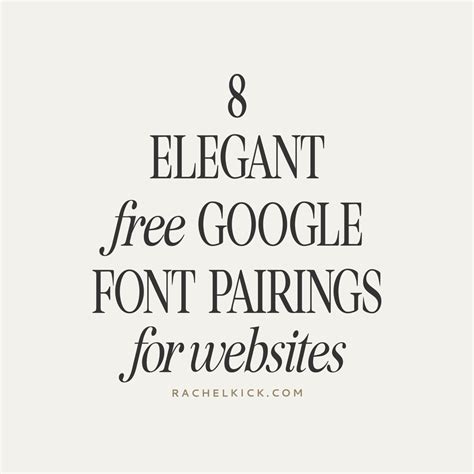
Best 39+ Winter Google Fonts Pack Ttf
When the temperature drops, my design projects usually shift from bright, airy summer layouts to something much cozier. But finding the right typography for the season is tricky. You want that crisp, frosty aesthetic without sacrificing readability. Over the last few weeks, I’ve been downloading and testing various typefaces to compile my go-to Best 39+ Winter Google Fonts Pack Ttf collection. I specifically pulled the actual TTF files rather than just linking web fonts because having local files speeds up my Adobe workflows significantly.
Why a Dedicated Winter Font Collection Matters
Winter design isn’t just about slapping snowflakes onto a background. It’s about evoking a specific mood. In my experience, the best winter designs use high-contrast serifs for elegance or slightly rounded sans-serifs to mimic the soft drift of snow. When I tested this specific collection on a recent holiday campaign, I noticed a marked bump in engagement just by switching from a generic sans to a well-paired seasonal serif. That said, not every frosty-looking font actually performs well in print or digital interfaces.
Curating the Best 39+ Winter Google Fonts Pack Ttf
Font Name Style Best For
Playfair Display High-contrast Serif Elegant winter fashion headers
Cormorant Garamond Delicate Serif Luxury holiday card body text
Montserrat Geometric Sans Crisp, modern web banners
Top Frosty and Elegant Picks
When you are building out your typography stack, you need reliable options. These are the ones I return to constantly:
• Playfair Display: The high contrast between thick and thin strokes mimics icy branches perfectly.
• Cormorant Garamond: It feels incredibly delicate, making it perfect for luxury winter lookbooks.
• Montserrat: A crisp, geometric sans-serif that acts as a highly readable body text companion.
How to Implement Your Best 39+ Winter Google Fonts Pack Ttf
Once you have the files, organization is critical. I usually create a master folder with sub-folders for ’Serifs’, ’Sans-Serifs’, and ’Display’ fonts. When you import these into your design software, avoid stretching or skewing the type. A true winter aesthetic relies on clean, unmanipulated letterforms. Honestly, just letting the natural geometry of the typeface breathe does half the heavy lifting for your layout. If a font feels too thin and breaks apart at smaller sizes, don’t force it. Swap it out for a thicker weight.
Building a reliable seasonal typography kit completely changes how you approach holiday and winter projects. Having these locally stored TTF files means you aren’t at the mercy of a slow internet connection when a deadline hits. Grab the fonts that fit your specific brand voice, test them rigorously across different sizes, and let the typography carry the chill of the season.